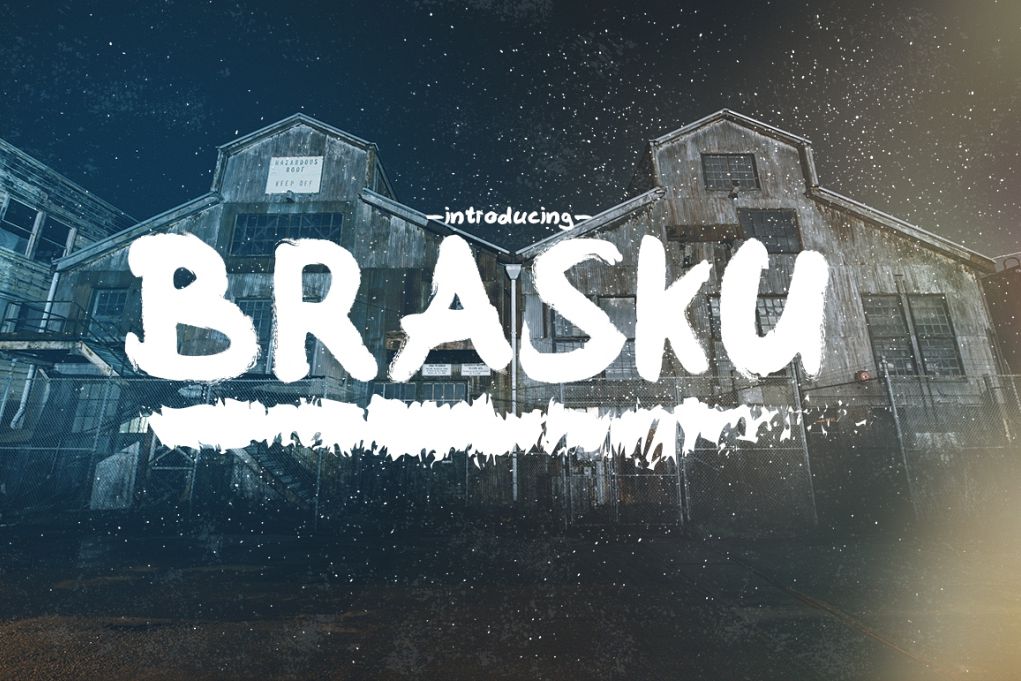
Brasku Font + Extras
Brasku
Brasku is a letter that was made with a touch of the hand, this letter can be used for various purposes such as CD labels, packaging, logos, invitations, magazine layouts and other purposes.